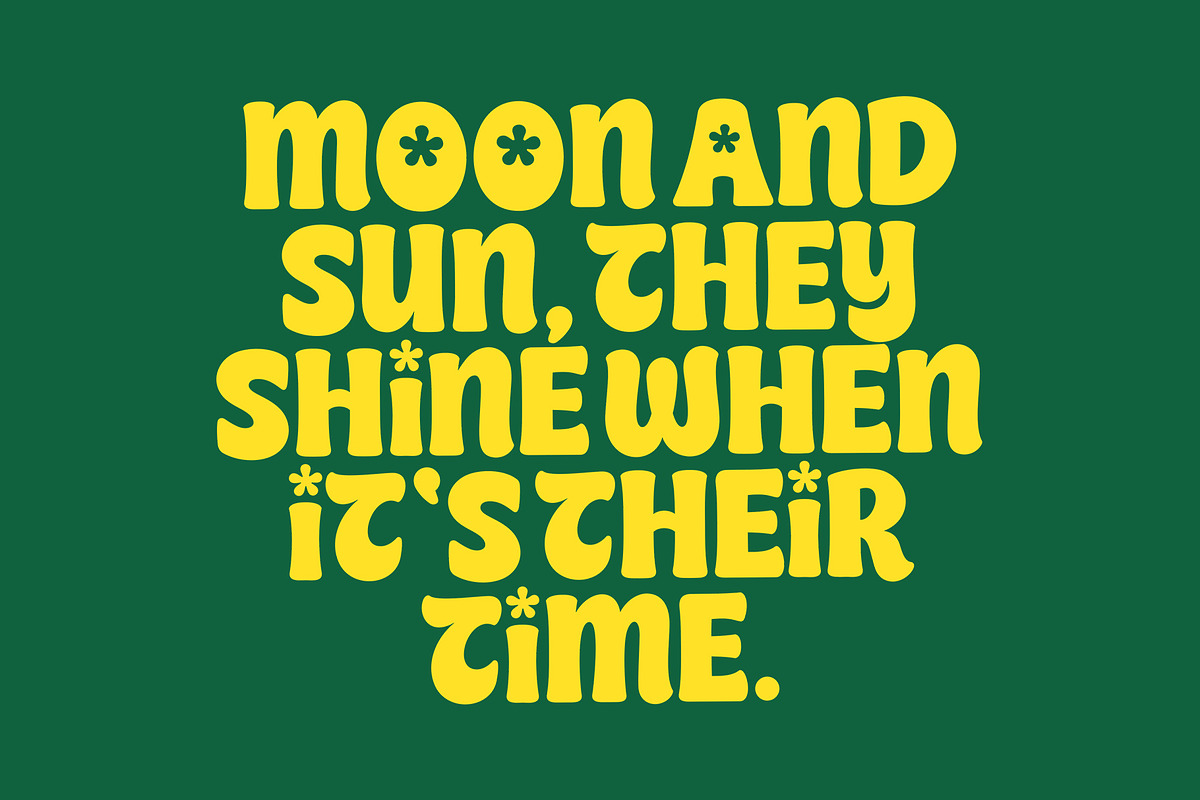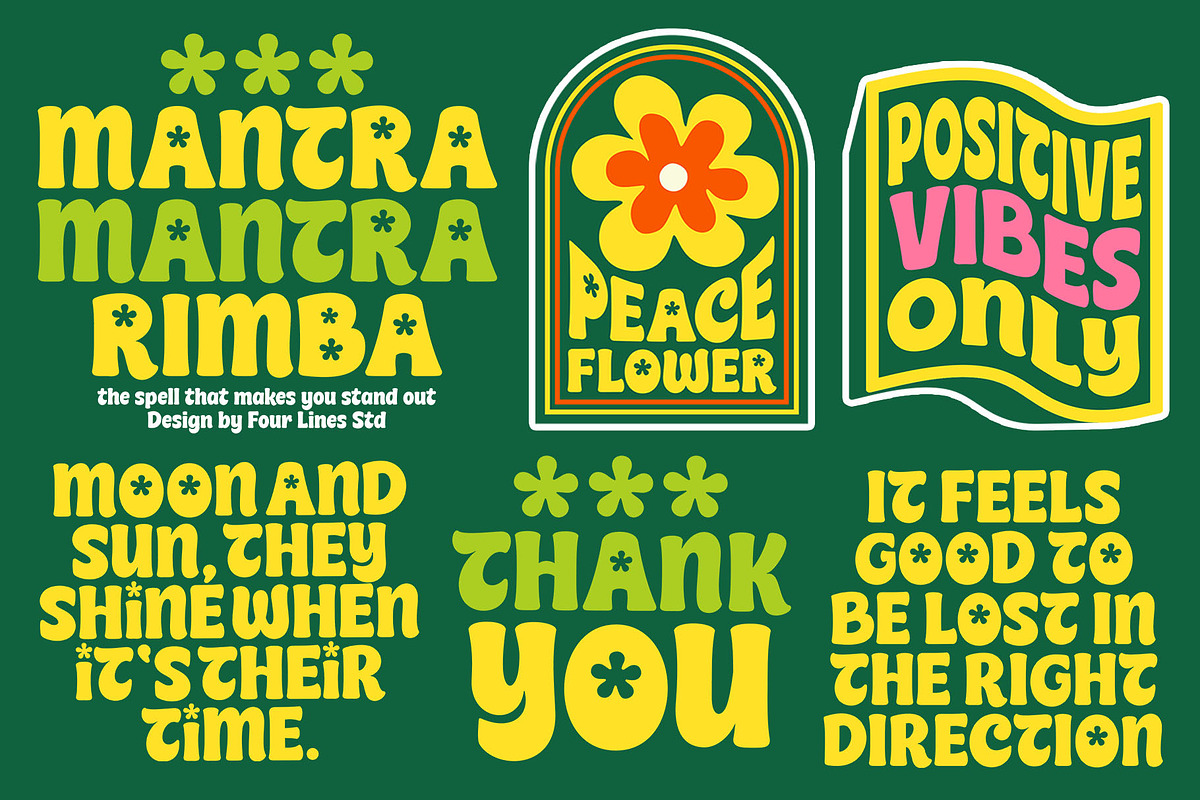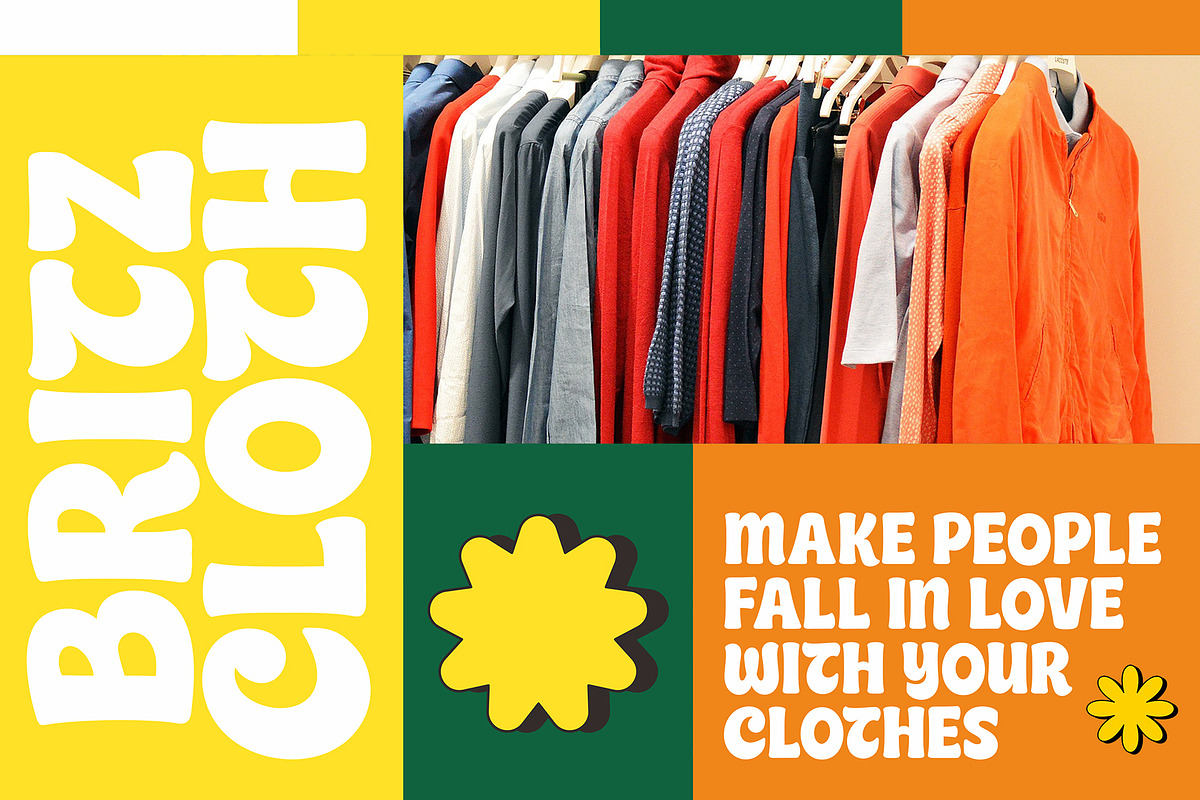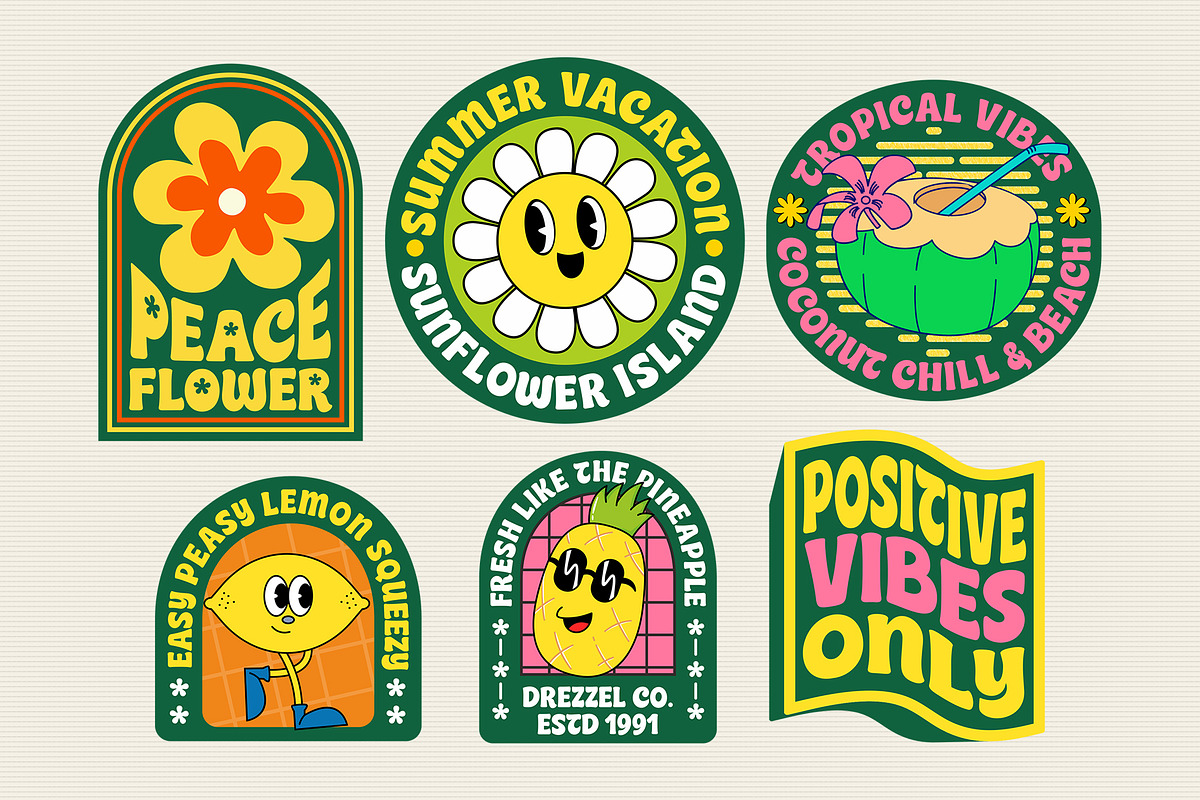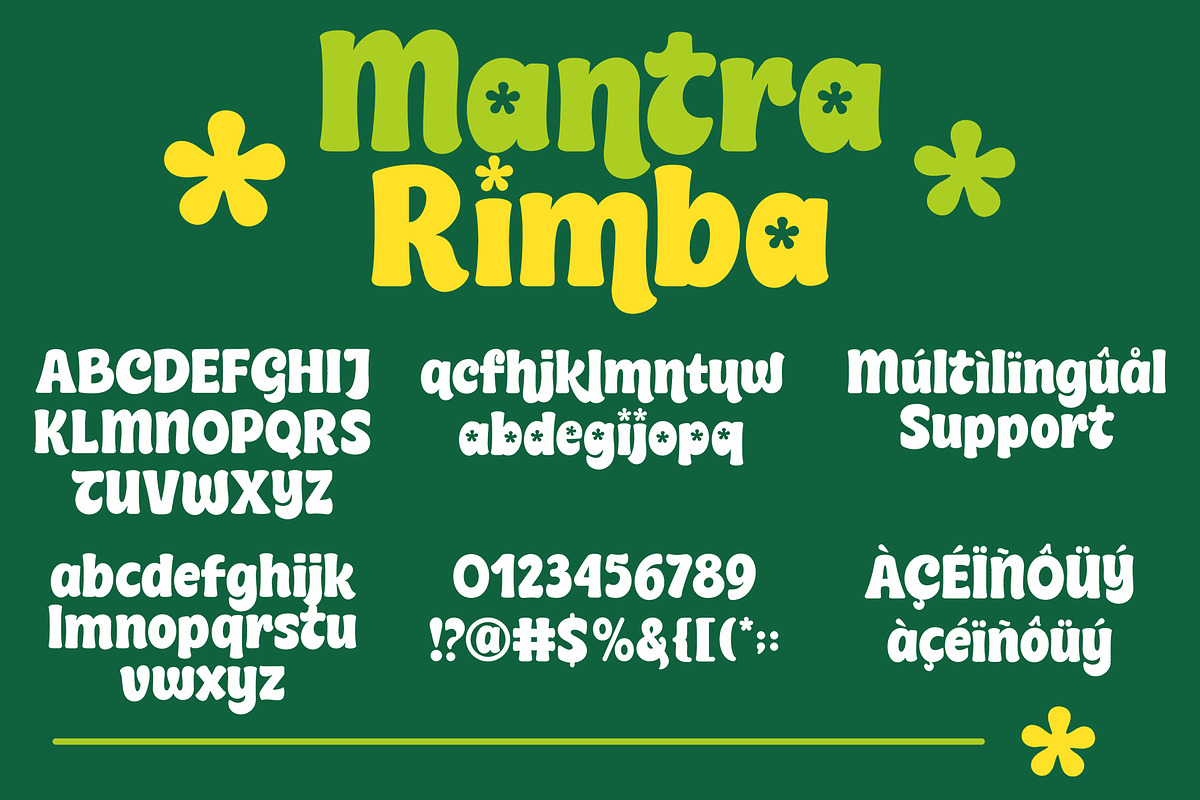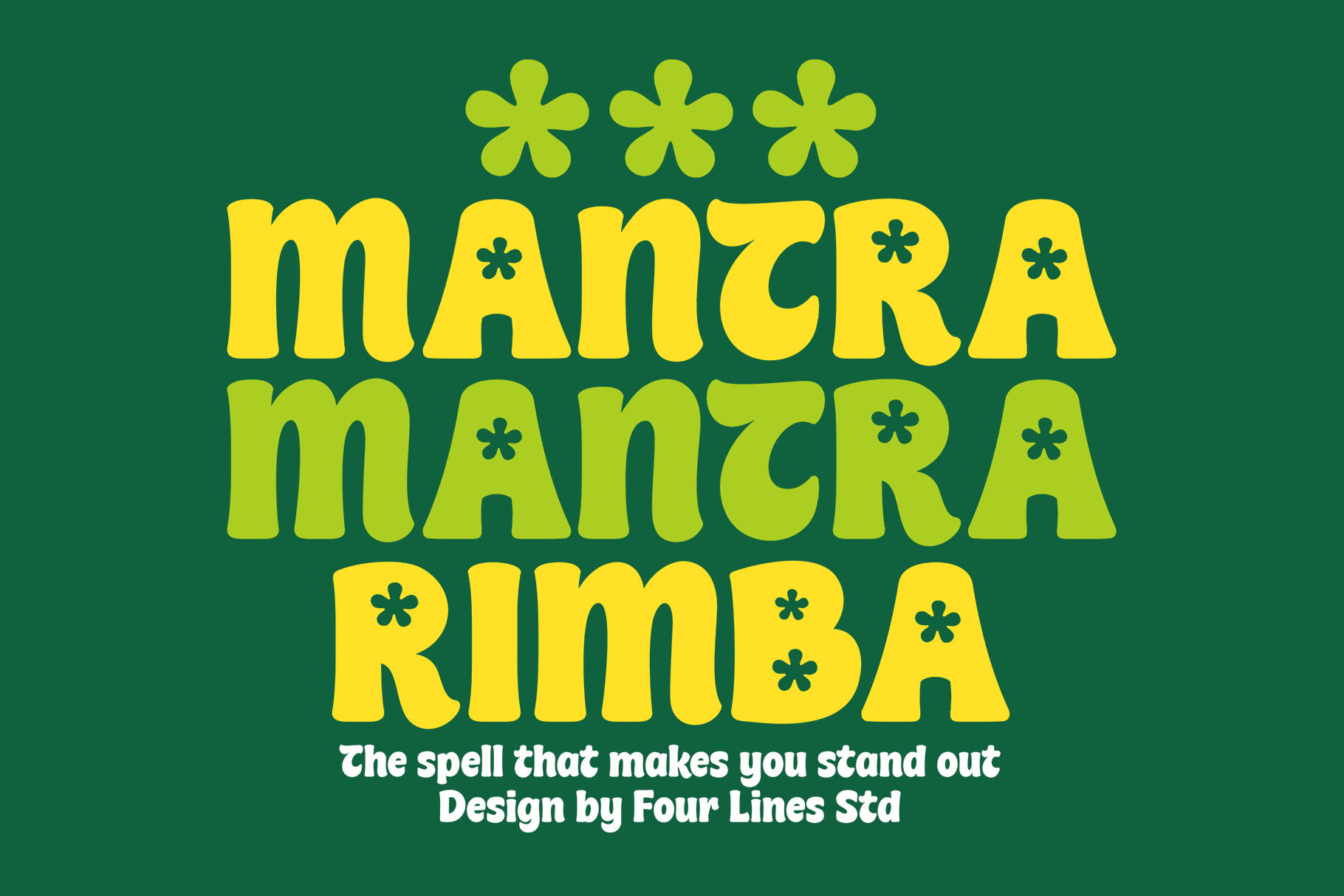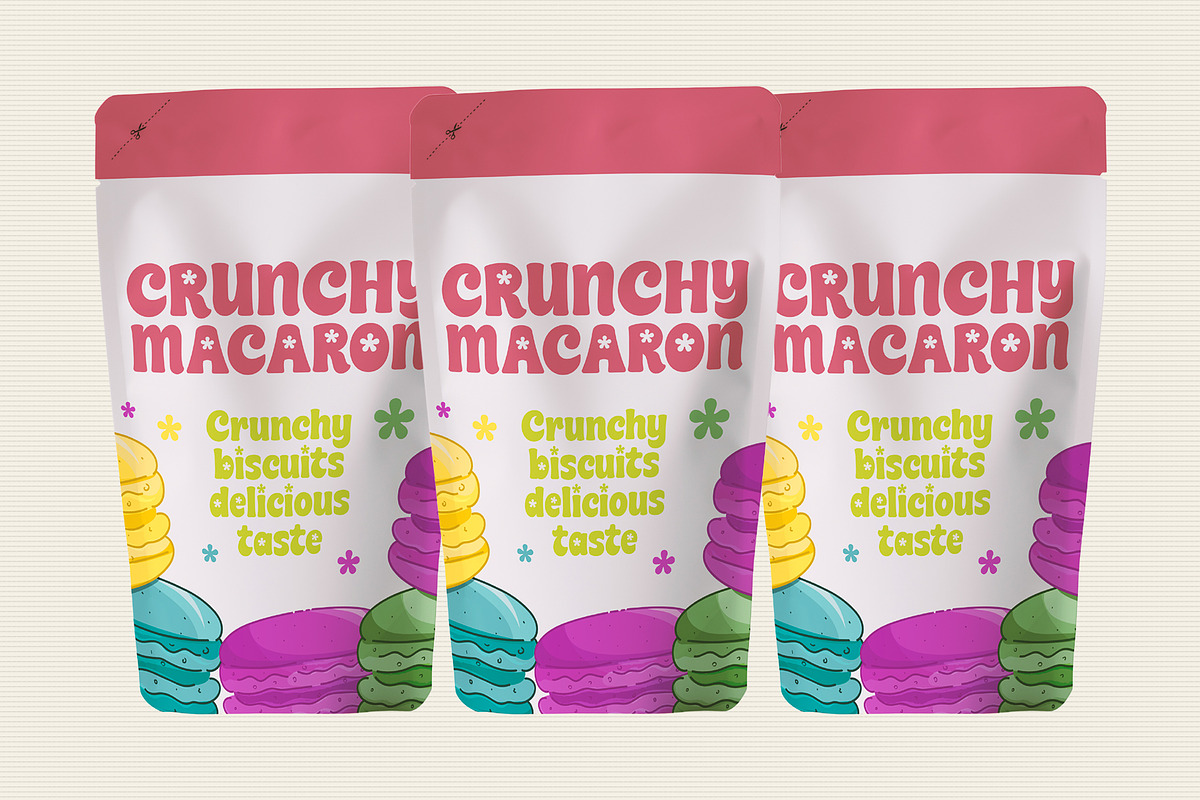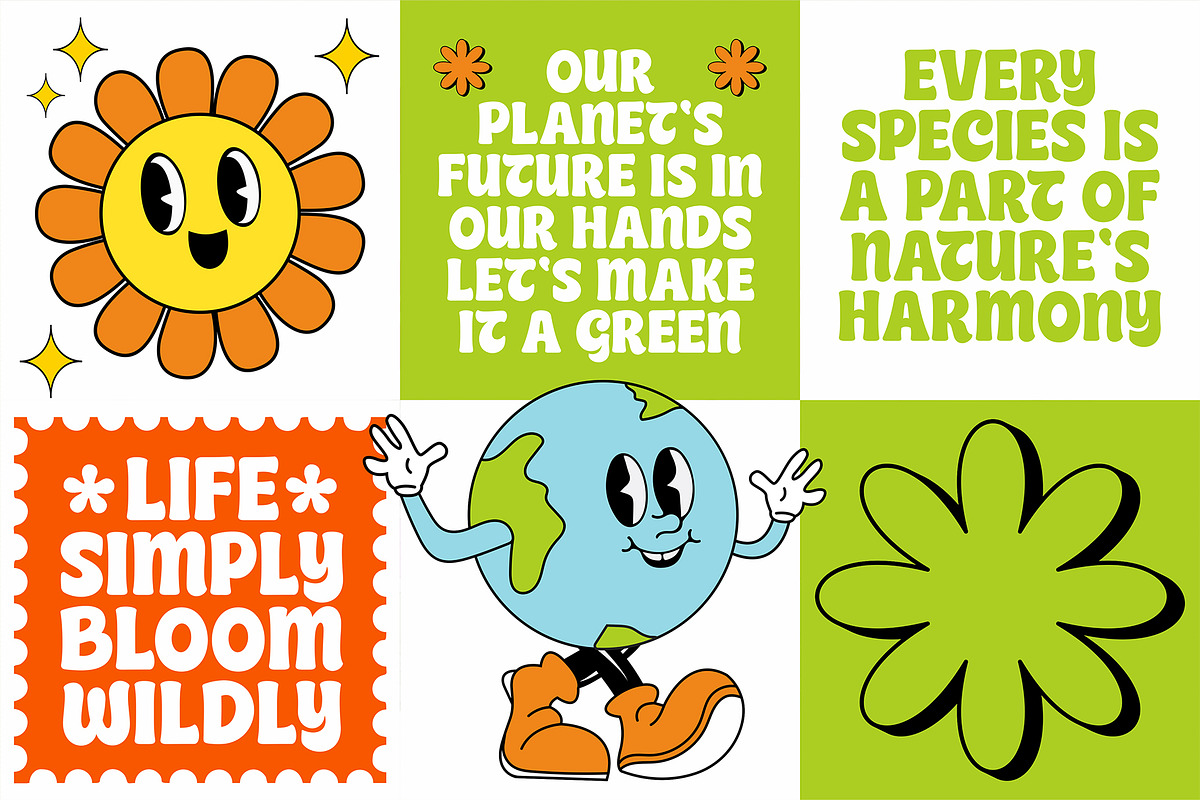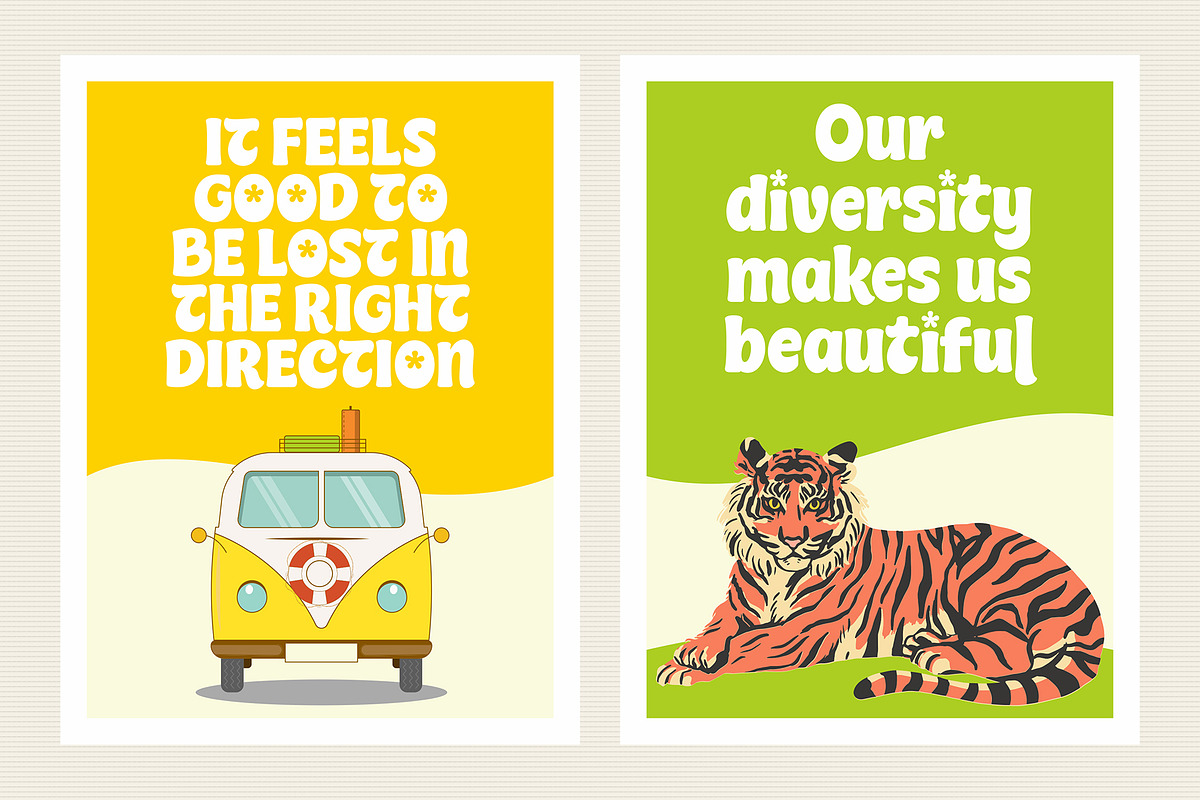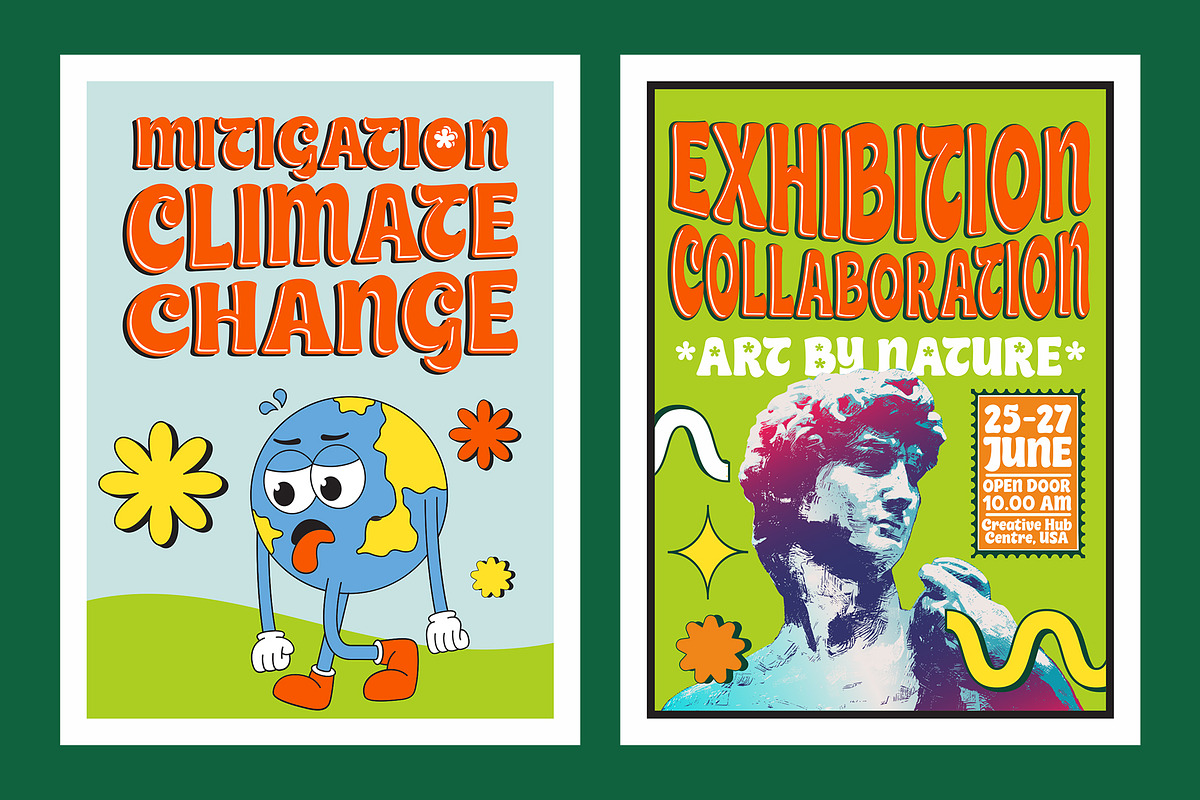
Mantra Rimba – Playful Display Font
Introducing Mantra Rimba Font: Where Nature's Magic Meets Readability, inspired by the beauty that surrounds us. While it's inspired by nature's whimsy, we haven't forgotten the basics. This font ensures your message is clear, making it perfect for a wide range of creative projects. Whether you're designing invitations, logos, social media graphics, posters, or stickers, let "Mantra Rimba Font" be your creative muse. It adapts flawlessly to any canvas.